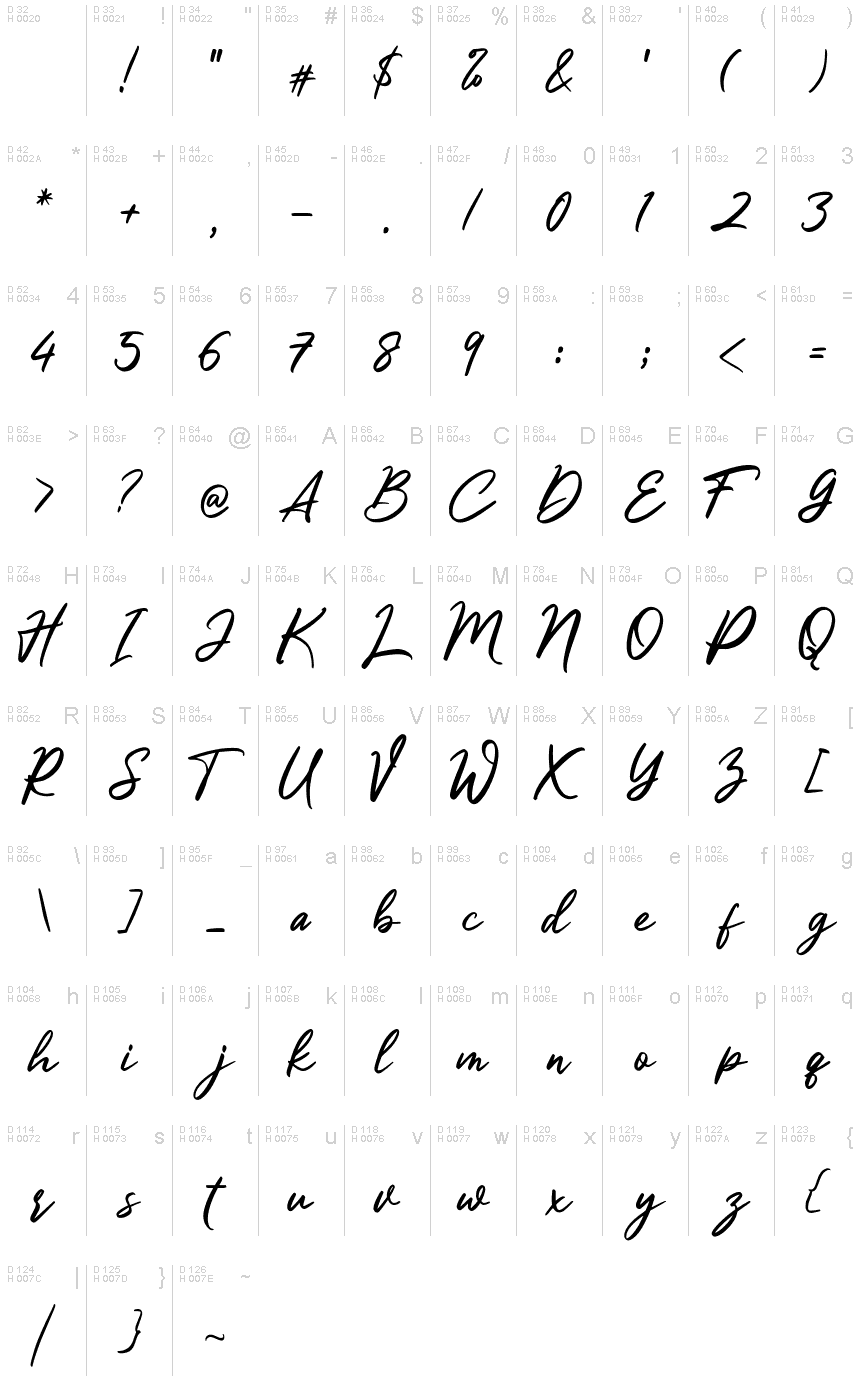
Firegoods
Experience the fluid elegance of Firegoods, a semi-light, handwritten font crafted by the talented Ikrar Bey Khubaib. With its cursive, paint-brushed script style, Firegoods brings an artistic flair to any project.
Each character appears to pirouette with grace and spontaneity across the page, infusing your ideas with a dynamic and personal touch that is as unique as it is memorable. Perfect for branding, invitations, or any design that demands a touch of bespoke charm, Firegoods is not just a font—it's a statement piece for your creative toolkit.
Embrace its distinctiveness and watch your designs come alive with character and sophistication.